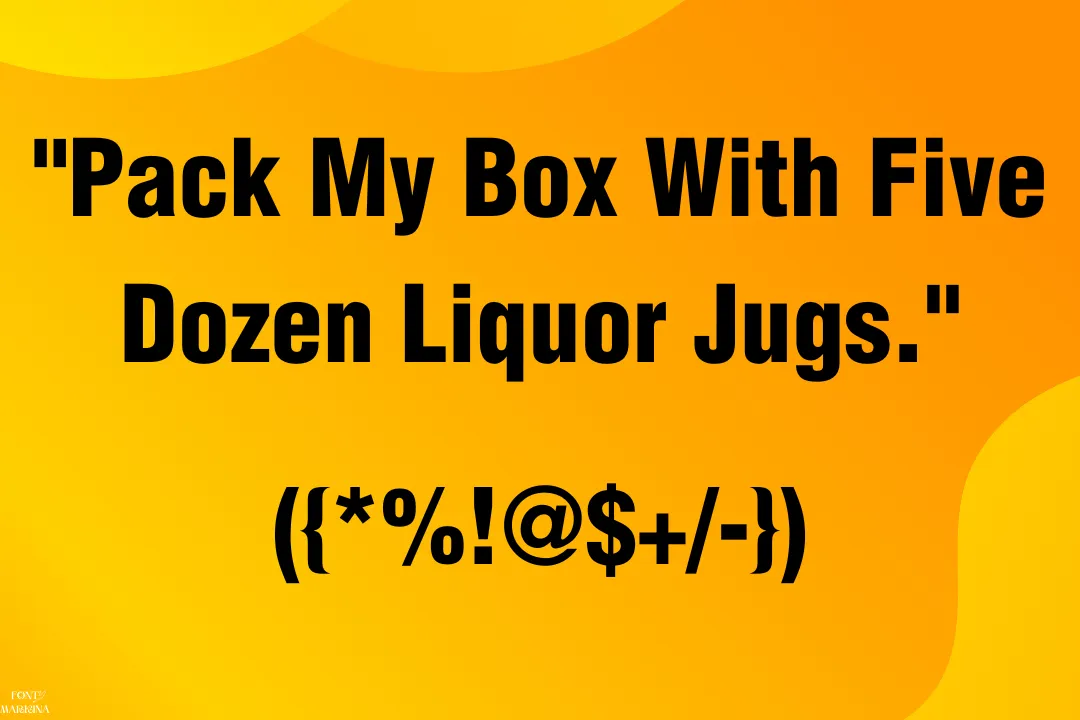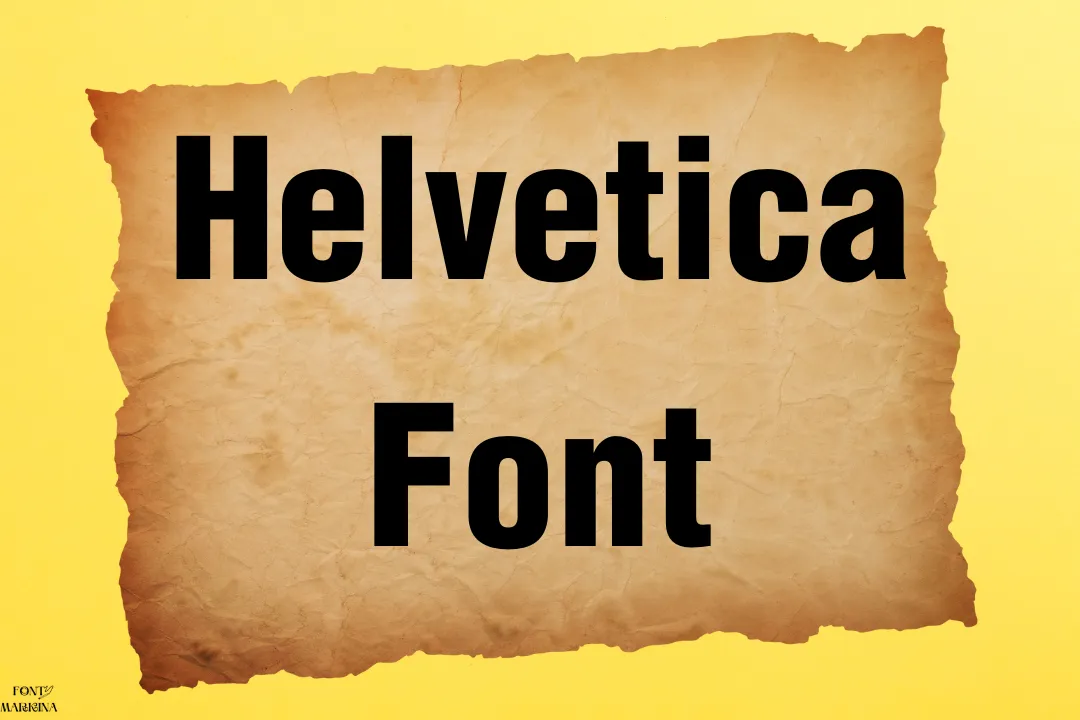
About Helvetica Font
Helvetica Font is a widely-used sans-serif typeface that was developed in 1957 by Swiss typeface designer Max Miedinger in collaboration with Eduard Hoffmann. It was originally designed as a neutral typeface that could be used for a wide range of purposes and was intended to have a clean and modern look.
The design of Helvetica is characterized by its simplicity, with simple, clean lines and a lack of ornamentation. It is a popular choice for use in graphic design, advertising, and corporate identity materials, as well as digital interfaces such as websites and mobile apps. All of you can also explore it on Google. It is beneficial for Adobe and MS Word.
Helvetica typeface is available in many different weights, including regular, light, bold, and ultra-light, as well as condensed and expanded versions. It is also available in a wide range of character sets, including support for Latin, Greek, and Cyrillic scripts. Its similar Big John Pro font looks like this one.
Helvetica family has become one of the most popular typefaces in the world and has been used in countless logos, advertisements, and other forms of branding. Because of its neutral and versatile design, it is considered a timeless classic font and widely used till now. The online text generator tool of this typography is effective for multiple colorful projects and attainable for free download.
About Designer
Max Miedinger (1910–1980) was a Swiss typeface designer and graphic designer. He is best known for creating the popular typeface Helvetica, which he developed in collaboration with Eduard Hoffmann in 1957.
Miedinger was born in Zurich, Switzerland, and began his career as a commercial artist and graphic designer. In the 1950s, he began working for the Haas Type Foundry, where he was tasked with creating a new typeface that could be used for a wide range of purposes. He collaborated with Eduard Hoffmann, the owner of Haas, to develop Helvetica, which was originally known as Neue Haas Grotesk.
The font was first released in 1957, and it quickly became one of the most popular typefaces in the world. Helvetica was designed to be a neutral typeface that could be used for a wide range of purposes.
Who Can Use Helvetica Font
Helvetica Typeface is a versatile font that is used in a wide range of applications, including:
- Graphic design: Helvetica is often used in graphic design projects, such as posters, brochures, and other printed materials, due to its clean, modern appearance and readability.
- Advertising: The font is often used in advertising campaigns because it is easy to read and can convey a sense of simplicity and reliability.
- Branding: Helvetica is commonly used in branding and corporate identity materials such as logos, business cards, and letterheads, as well as in packaging design.
- Signage: Due to its clear, legible design, Helvetica is often used for signs and labels in public spaces, including transportation hubs, airports, and shopping centers.
- Digital interfaces: Because of the font’s clear and easy-to-read design, it is commonly used in digital interfaces such as websites, mobile apps, and software user interfaces.
- Film and TV: The popularity of Helvetica has been used in numerous films and TV shows, to showcase its classic and timeless design.
- Others: The font is also used in other areas such as on official documents, in technical publications, and in reference materials.
This family is a widely used font that offers a neutral and versatile design, making it suitable for various uses and applications. Here, more interestingly in order to get more classic results you will make the strong pairing of VNI Helve Condense font with this family.
Helvetica Font View
| Name | Helvetica Font |
| Designer | Max Miedinger |
| Date | 1957 |
| Style | Sans Serif |
What is the type of Helvetica Font?
It is a sans-serif font, which means that it does not have small strokes (serifs) at the end of the main strokes of the letters.
Who is the real designer of Helvetica Font?
This family was created by Brilliant mind Swiss typeface designer Max Miedinger in collaboration with Eduard Hoffmann in 1957.